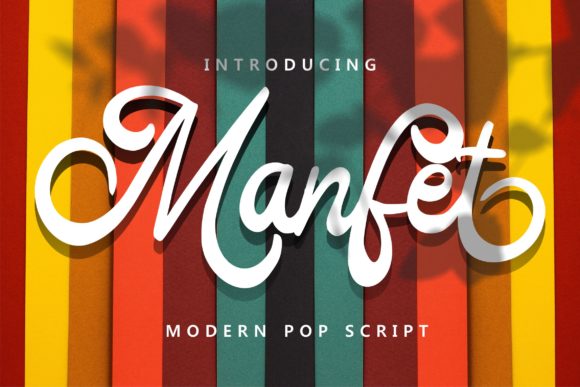
Embark on a typographic adventure with Manfet, a whimsical script font that dances across your designs with playful abandon!
Picture this: A font that's as charming as a handwritten note, yet as captivating as a neon sign. Manfet's unique blend of retro flair and modern style is the magic wand you need to transform your designs into enchanting works of art.
Every stroke of Manfet is a testament to the artistry of Ian Mikraz, a font designer who poured his heart into creating a typeface that's both expressive and effortlessly stylish. With its graceful swashes and subtle vintage undertones, Manfet captures the essence of nostalgia while propelling your creations into the future.
Whether you're crafting whimsical invitations, enchanting social media posts, or eye-catching logos, Manfet is your secret weapon for adding a touch of magic to every project. Its versatility knows no bounds, making it the perfect font for a myriad of design adventures.
Imagine your designs adorned with the elegant curves and captivating swashes of Manfet. It's like giving your creations a voice, a voice that whispers sweet nothings and captivates your audience with its undeniable charm.
So, why settle for ordinary fonts when you can dance to the rhythm of Manfet? Let your creativity soar, let your designs shine, and let Manfet be your guide on this extraordinary typographic journey.